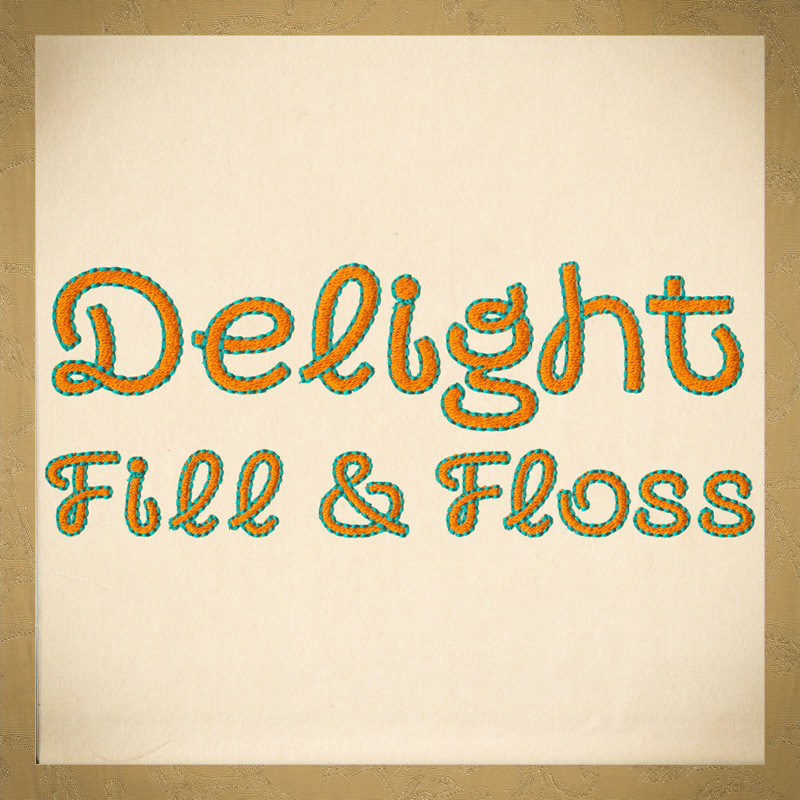
800 Delight Fill & Floss Font
800 Delight Fill & Floss Font comes in 1", 1.5", 2", 2.5", 3", 3.5", 4", 4.5" and 5" heights based on the capital "A". All sizes included in purchase price. Features uppercase letters, lowercase letters, numbers and 13 punctuation marks as show in the character chart on this page. All characters finished in Fill Stitch with 2nd color Floss Stitch outlines. Floss Stitch stitches out on all embroidery machine using standard embroidery thread.